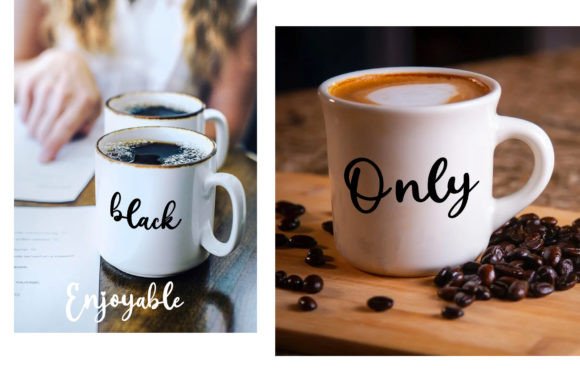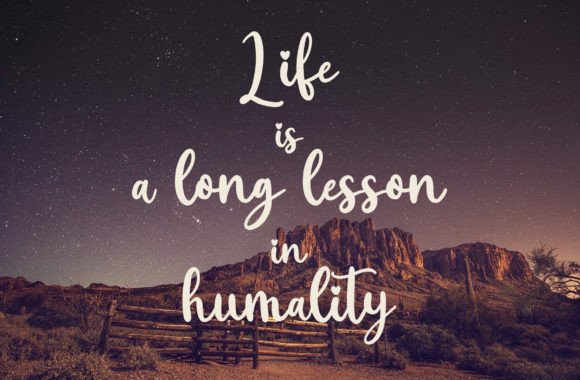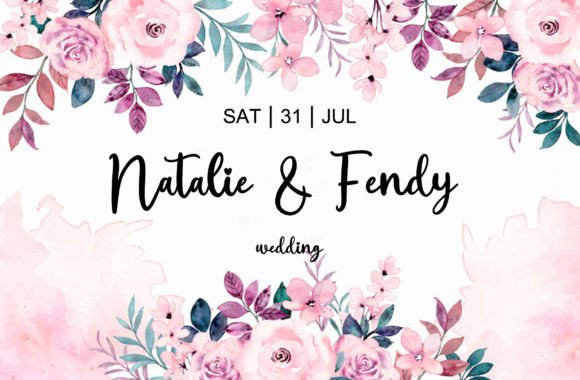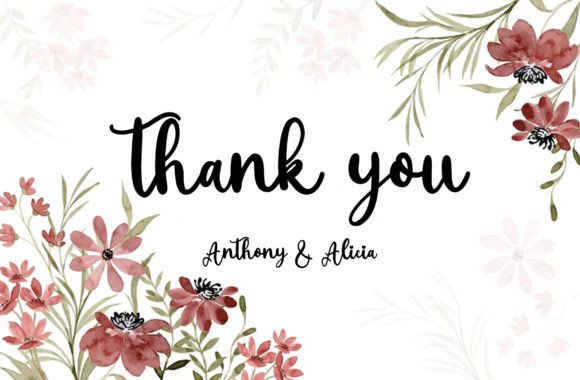
Introduction to Finest Font
Finest is a cute and lovely handwritten font.
Fall in love with its incredibly versatile style and use it to create gorgeous wedding invitations, t-shirt design, stationary art, eye-catching social media posts, and much more .